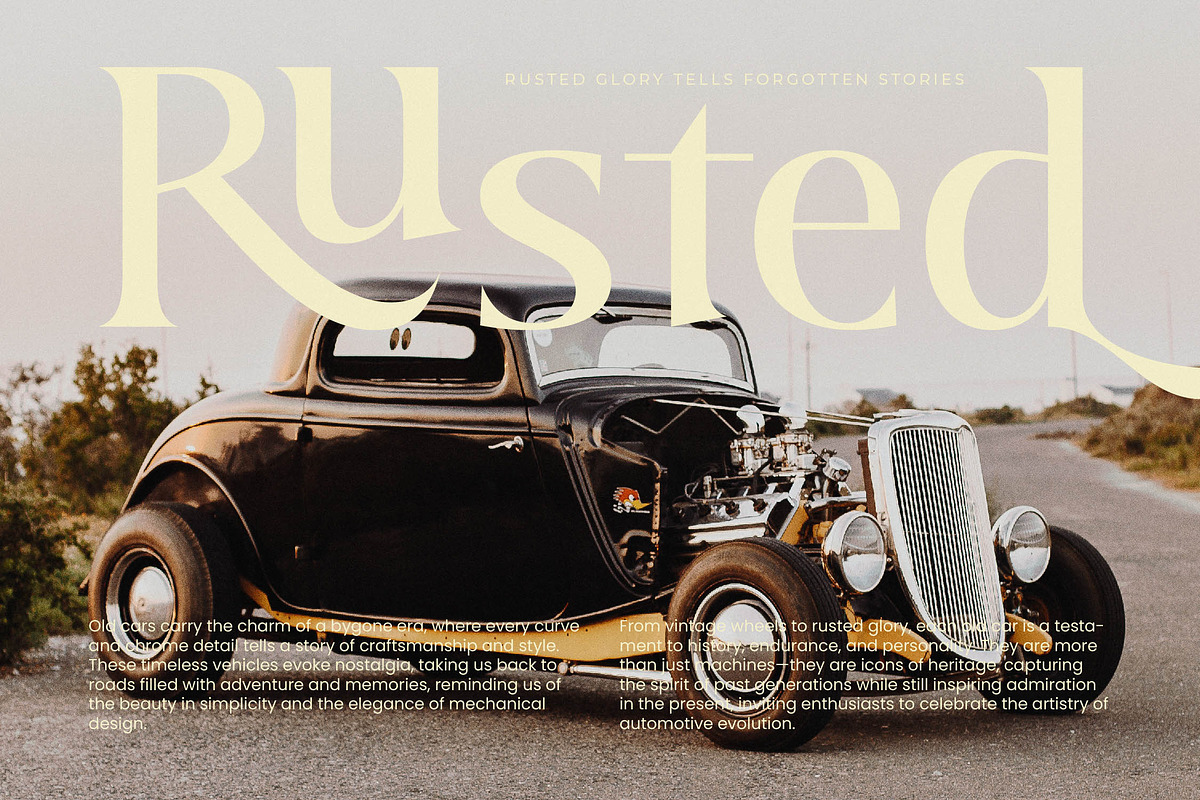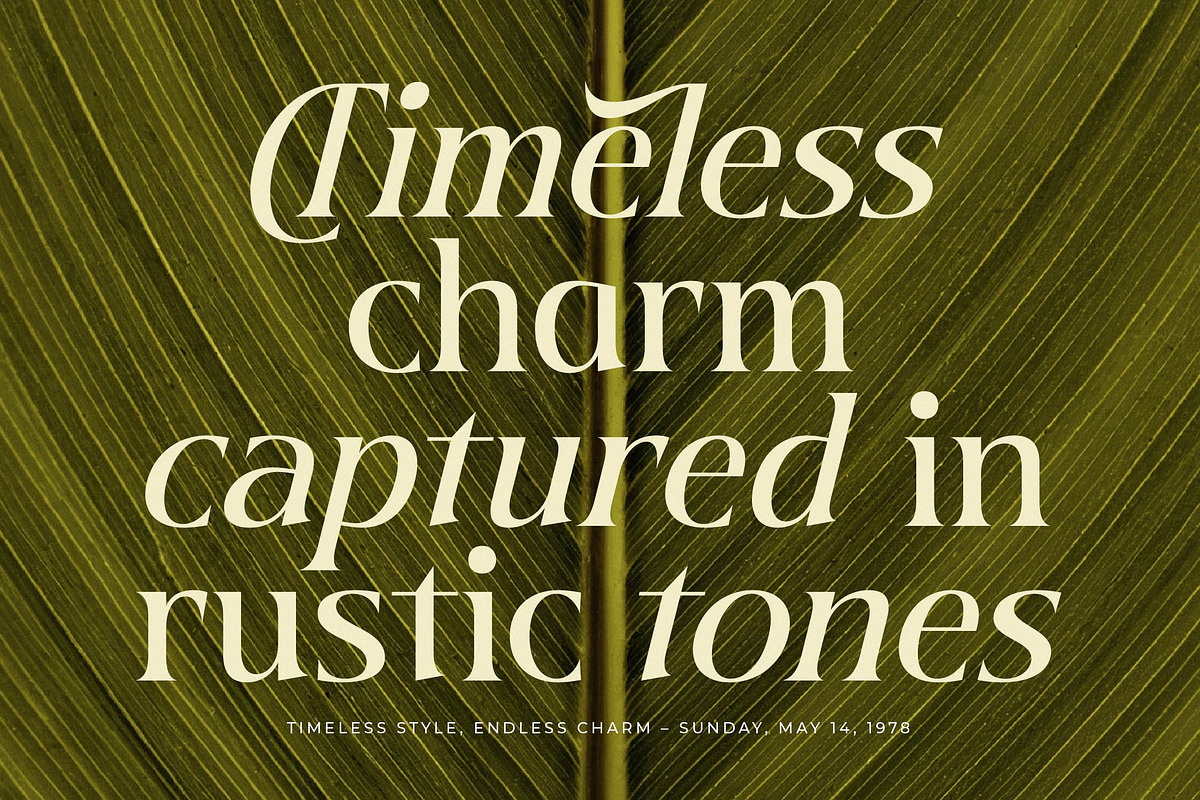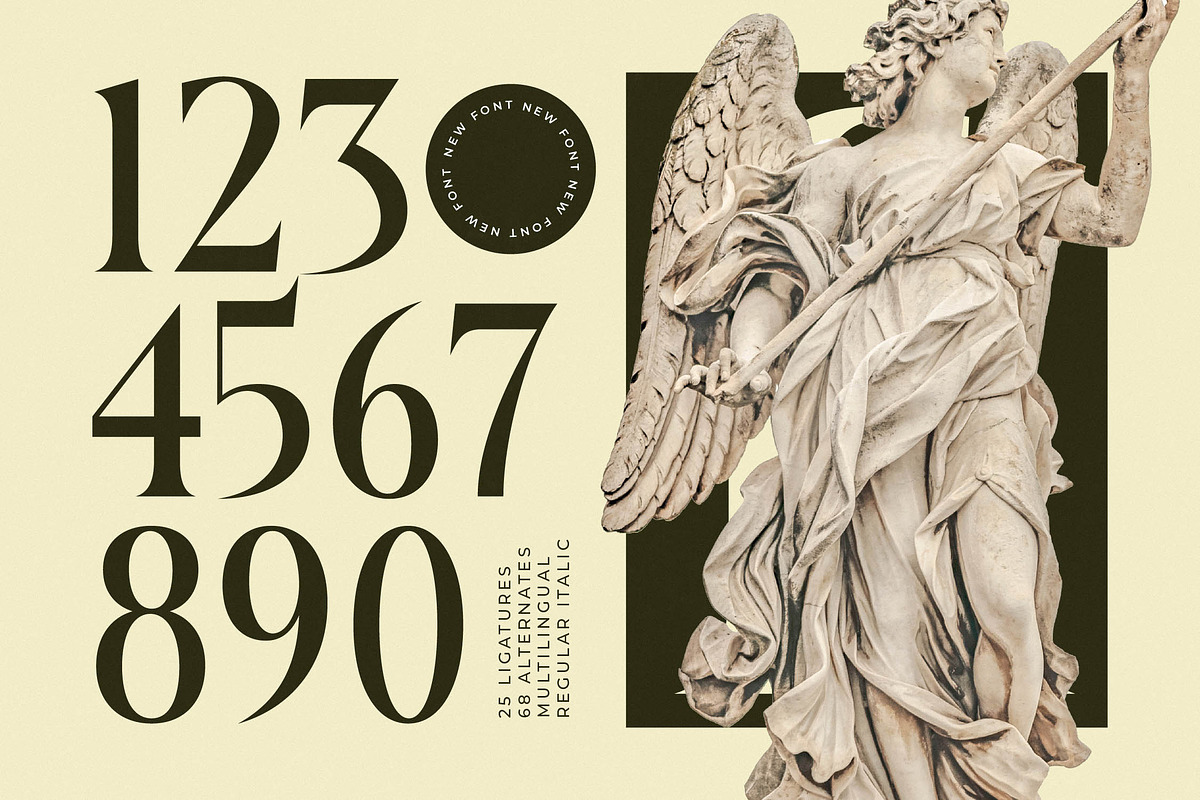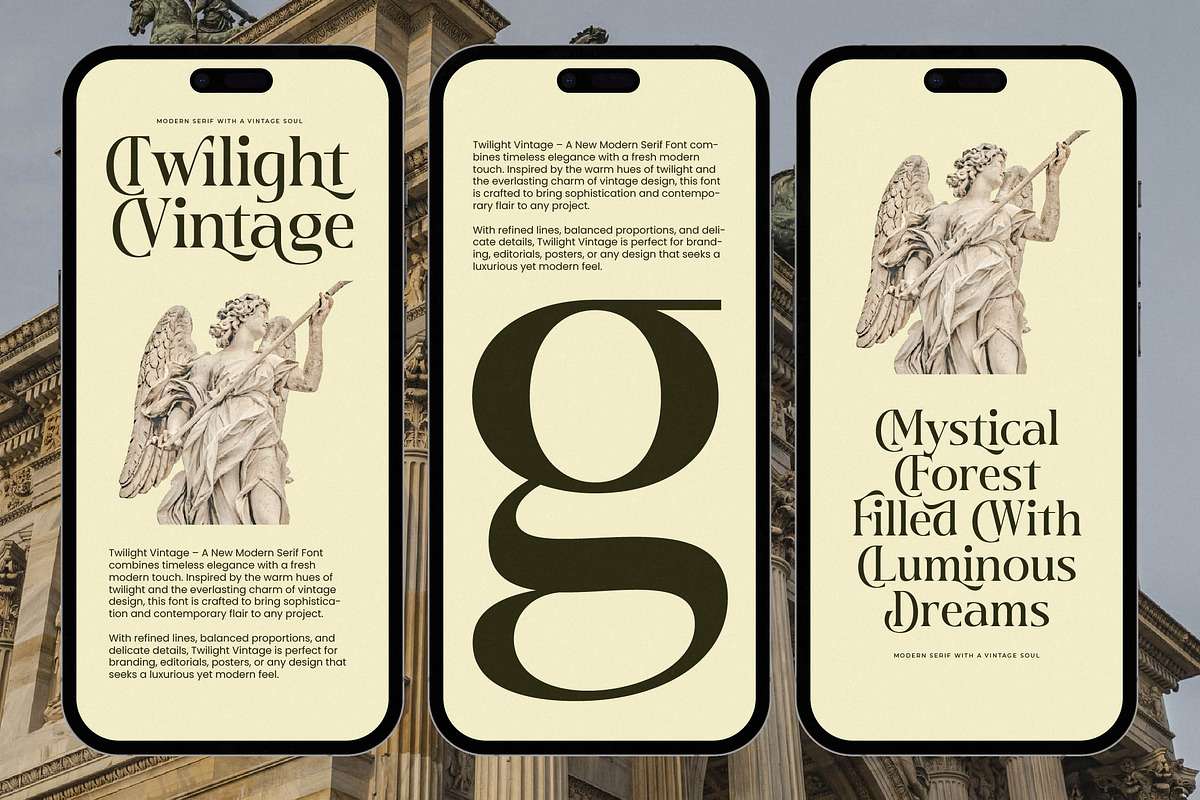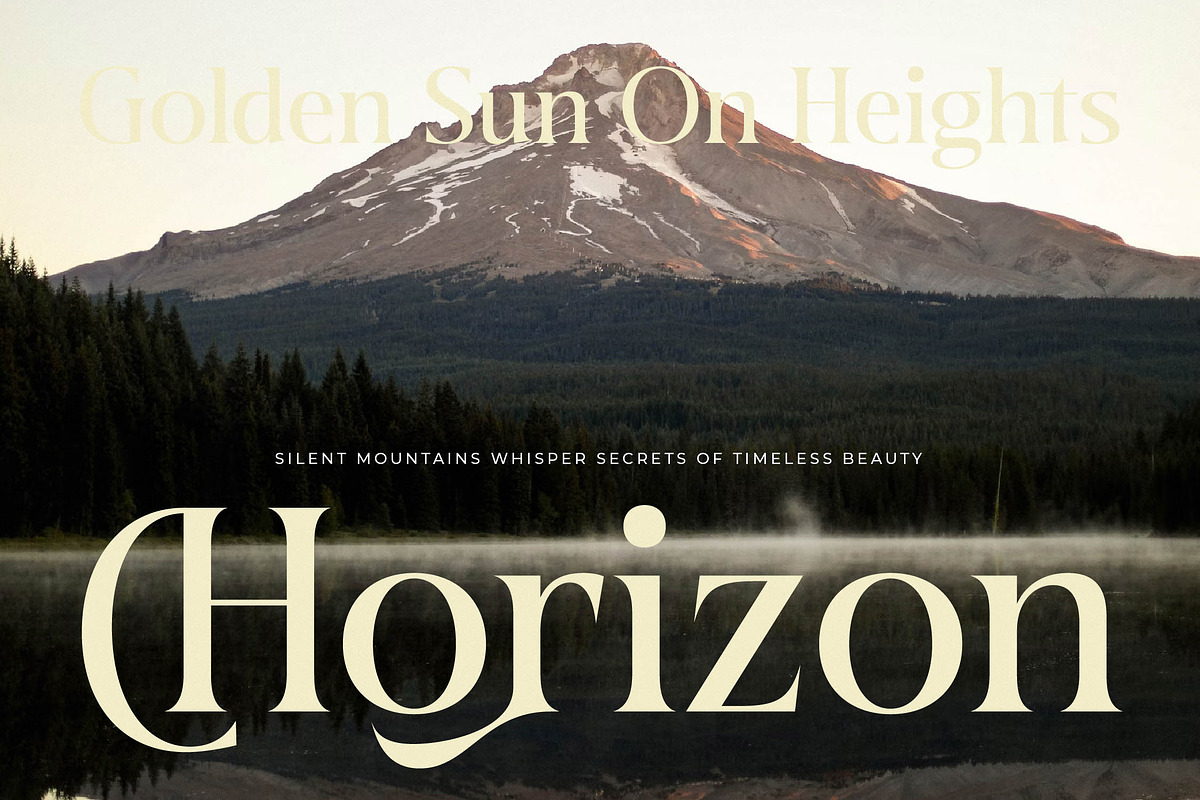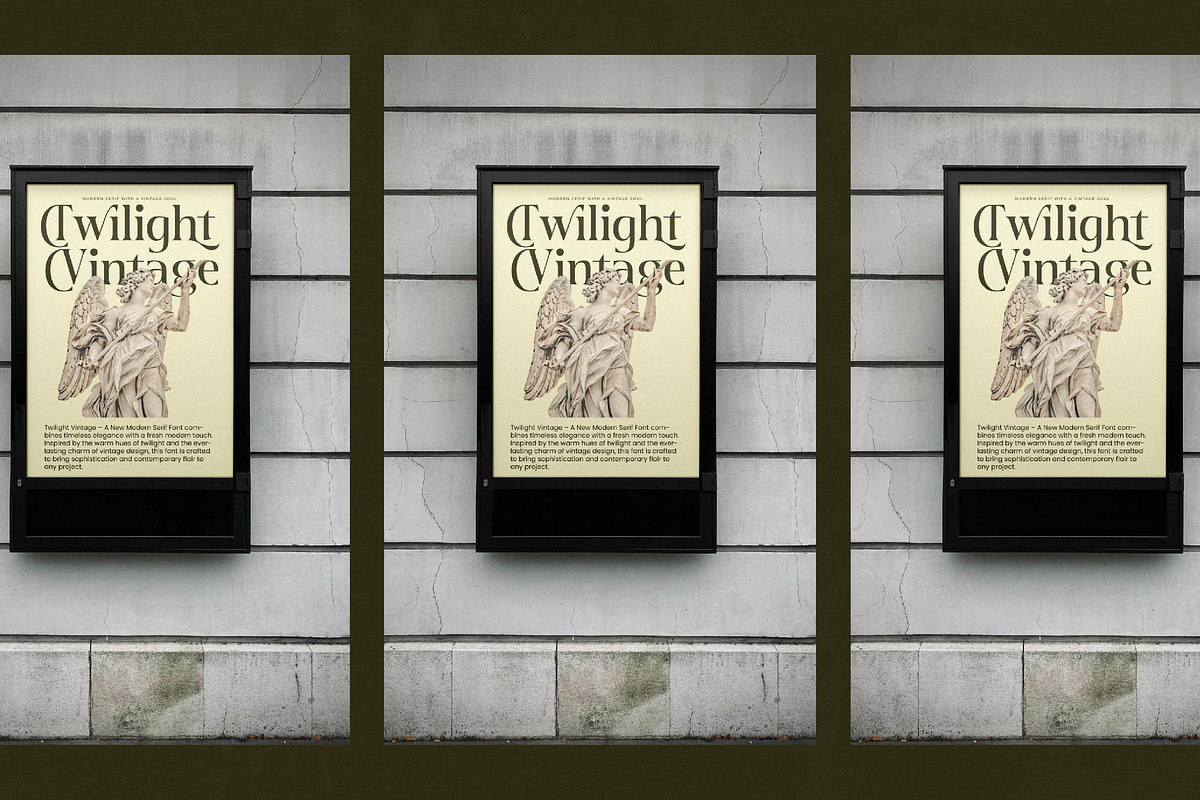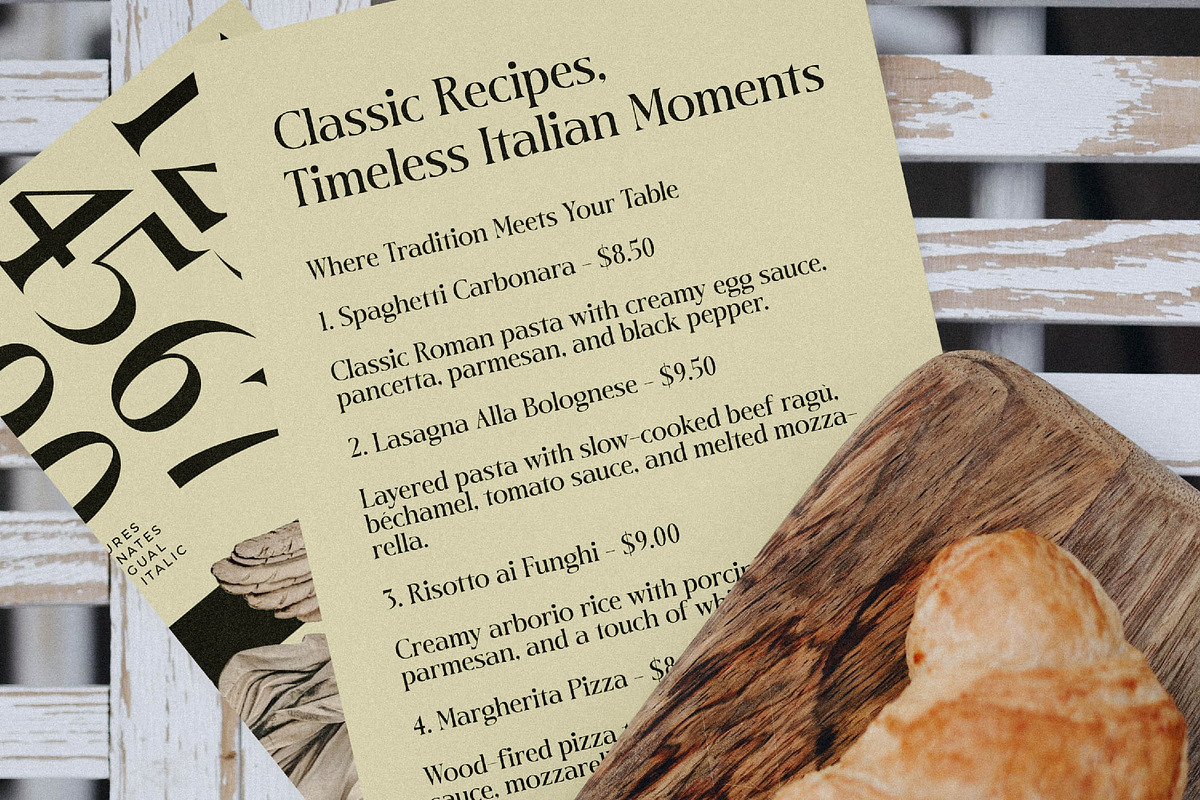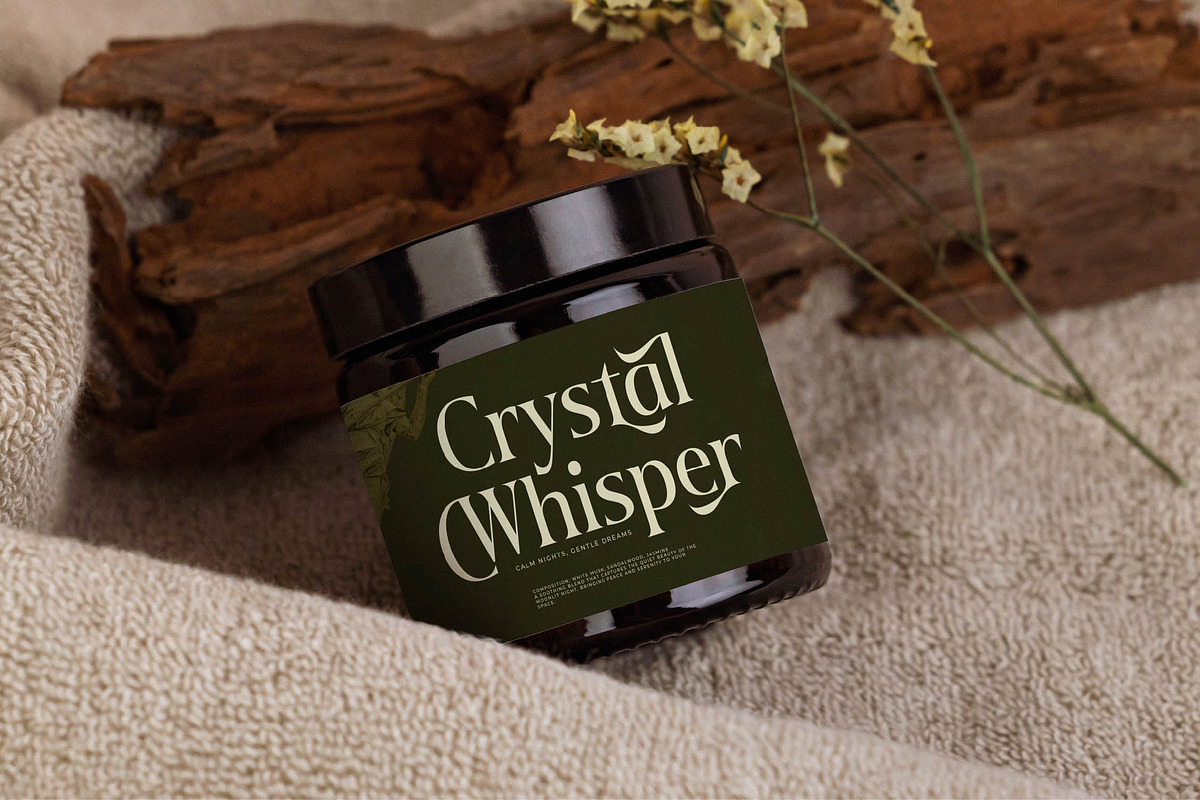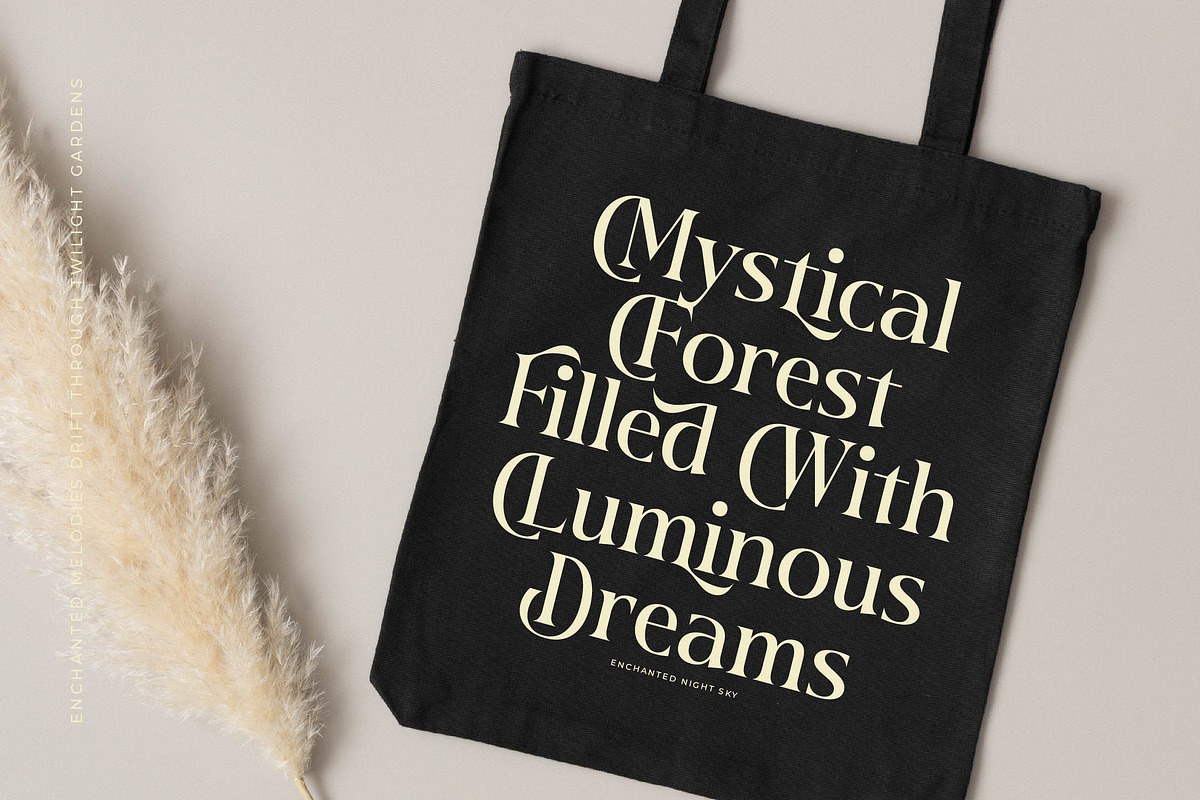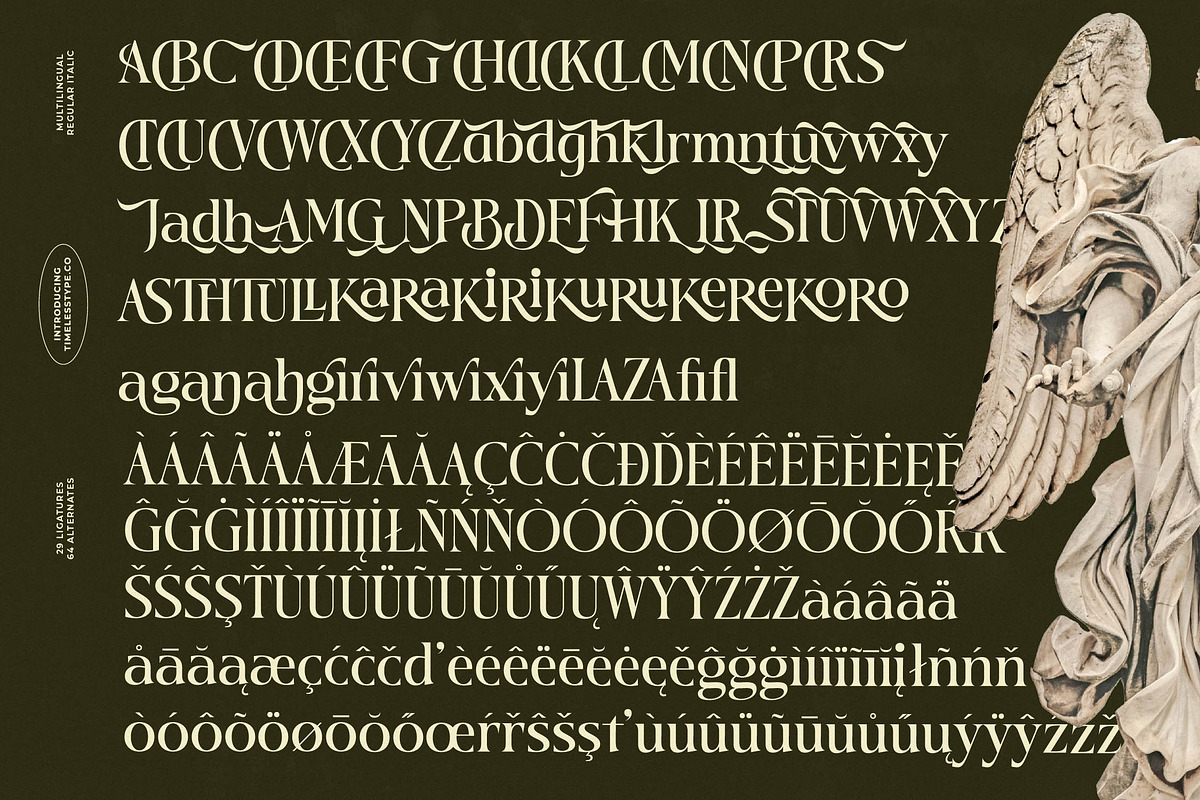
Twilight Vintage Modern Serif
Elevate your creative vision with the ethereal beauty of Twilight Vintage, a typeface that captures the essence of timeless sophistication. This font transcends ordinary design, offering a bridge between classical elegance and contemporary flair.
Drawing inspiration from the grandeur of neoclassical art and the romantic atmosphere of twilight hours, this collection reflects the intricate details found in weathered marble sculptures. It is a visual journey back to an era where every letter was crafted with intentionality and grace.
This modern serif display exudes an undeniable sense of luxury typography, making it perfect for those who demand a high-contrast serif with a soul. Every curve is designed as an editorial font to ensure your projects maintain a massive branding impact and command attention in any setting.
As the modern serif trend continues to dominate high-end aesthetics, this typeface stands at the forefront of editorial display fonts. It satisfies the growing demand for character-driven typography that tells a story through its unique silhouettes and artistic flourishes.
Transform your next logo design or branding project into a masterpiece of visual communication suitable for high-end editorial layouts. Whether you are working on bespoke packaging, a romantic wedding suite, or a cutting-edge fashion lookbook, this font provides the versatility you need.
Unlock a world of creative possibilities with a rich set of ligatures and alternates that allow for custom-tailored text arrangements. With included swashes, multilingual support, and a comprehensive set of international characters, your global design reach is limitless.
- Ligature 29 Alternate 64